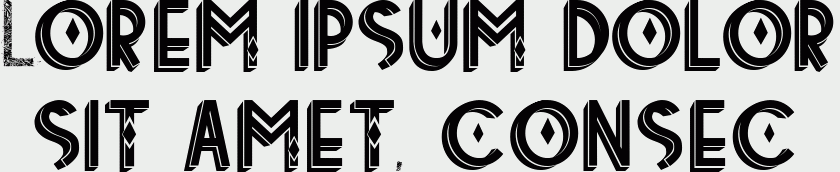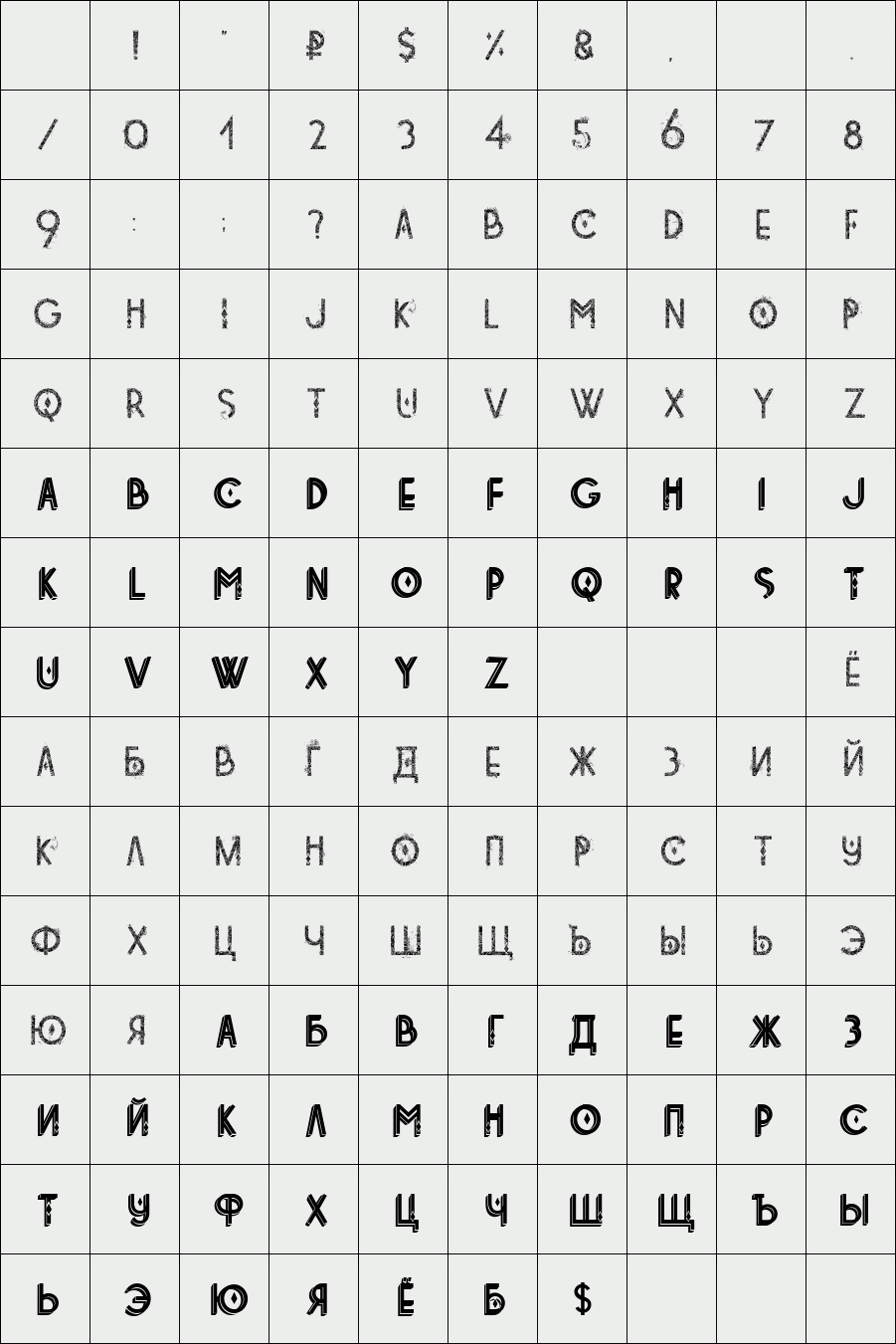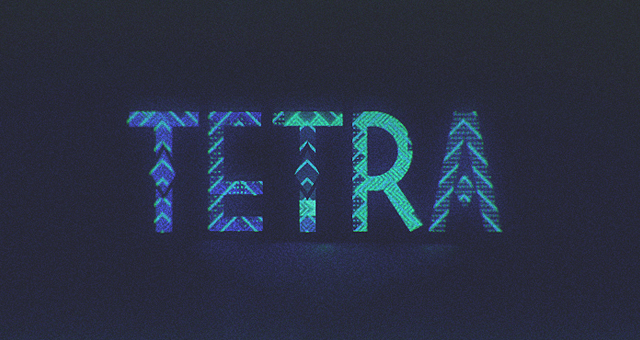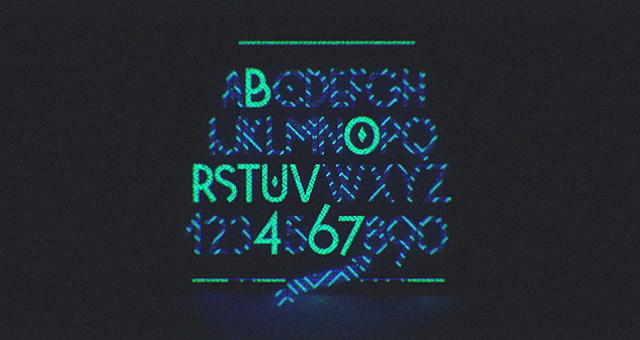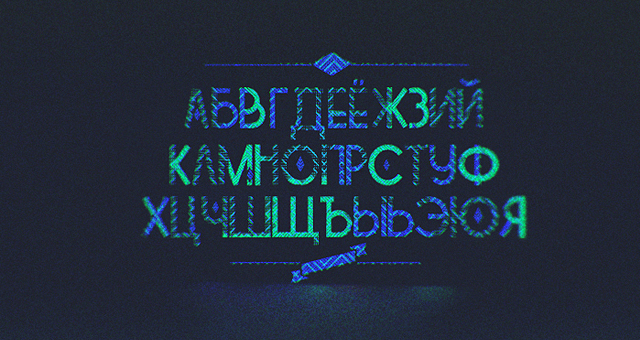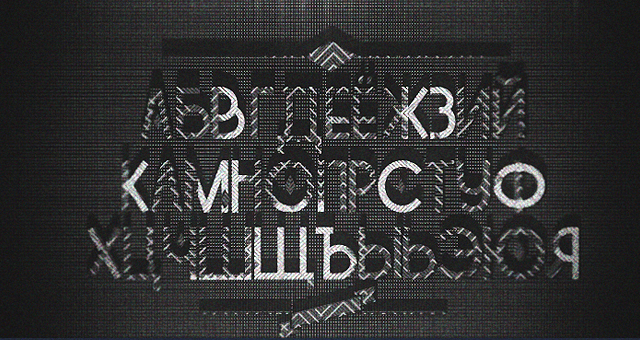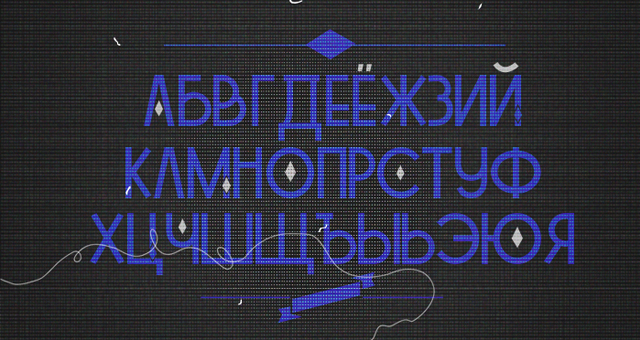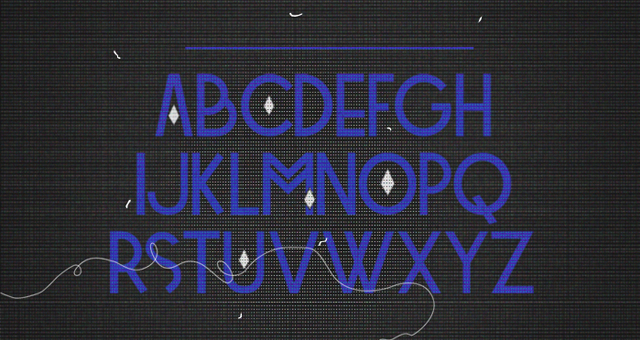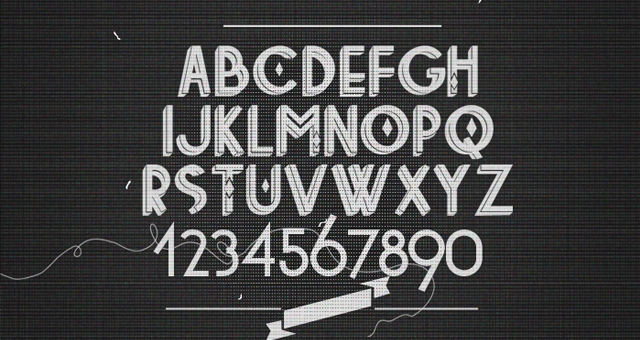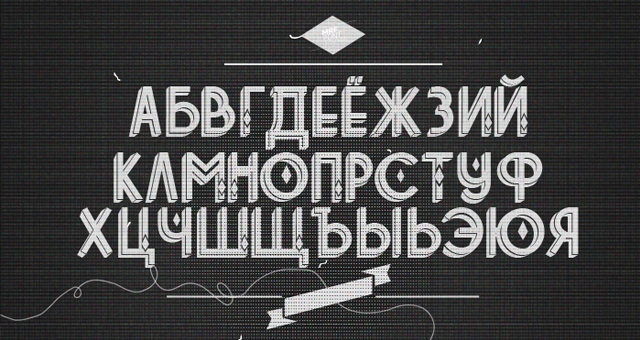
Tetra
/ Tetra Decorative
This experimental font was made on the wave of 2011, the general hysteria to imaginary solutions in typography, a simultaneous mix of retro and modern, futurism and classic.
Cyrillic, Latin
Designer: Alexey Frukta